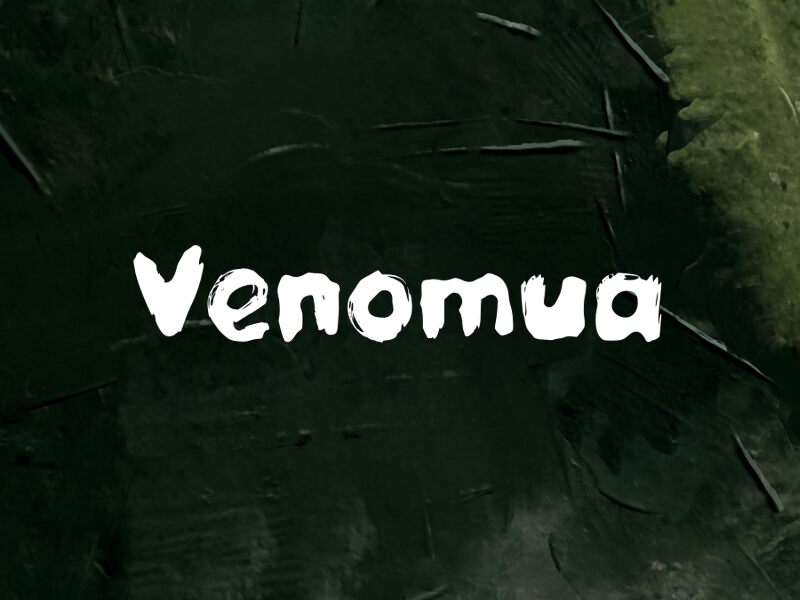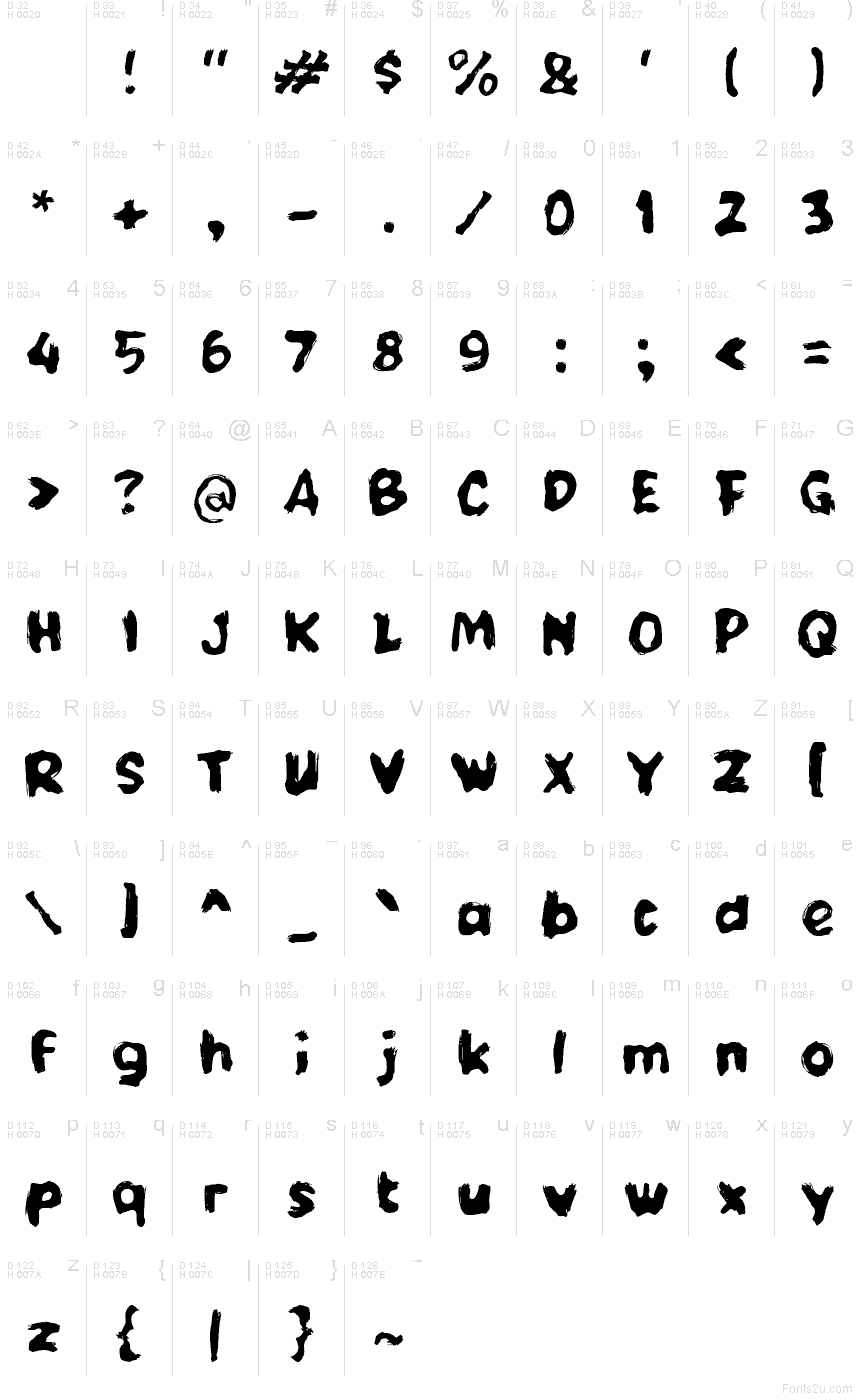
Venomua
Venomua font by wep is a free eroded display typeface that looks like it’s been clawed out of wet ink. Thick, swollen strokes bleed into rough, shredded edges, giving each word a dripping, organic weight that feels a little dangerous. The letters cling together in bold, irregular shapes, so your message hits like a smear of paint across a dark wall.
Using Venomua, horror movie posters, Halloween flyers, thriller book covers, escape room branding, game titles, and metal band graphics instantly gain a gritty, toxic edge. This free font works best large, where the ragged texture can really crawl across the page. For supporting copy, pair Venomua with a clean, narrow sans serif to keep the chaos in the headline and the details sharp and readable.